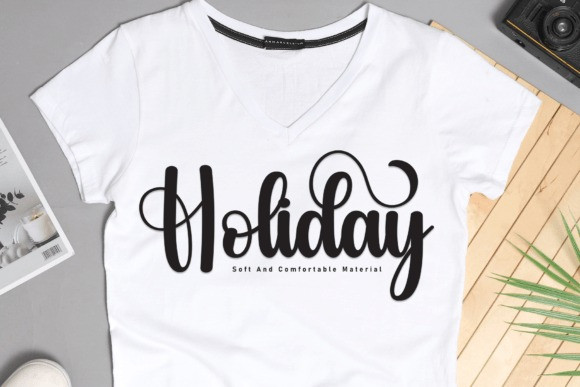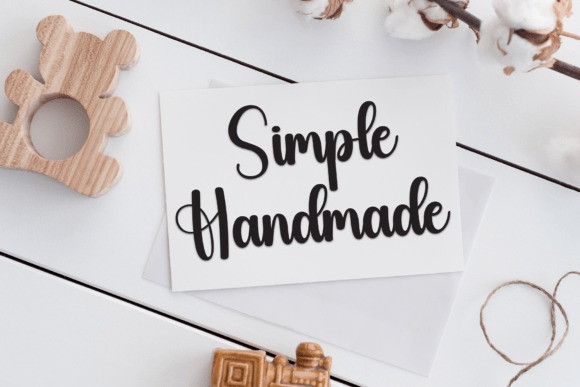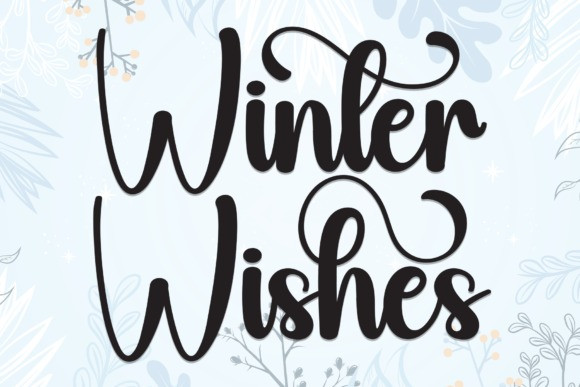
Winter Wishes Script Font
Winter Wishes Script Font is a lovely and timeless handwritten font. It is the best choice for creating eye catching logos, branding and quotes. Every letter has a unique and beautiful touch, which will make your design come alive!